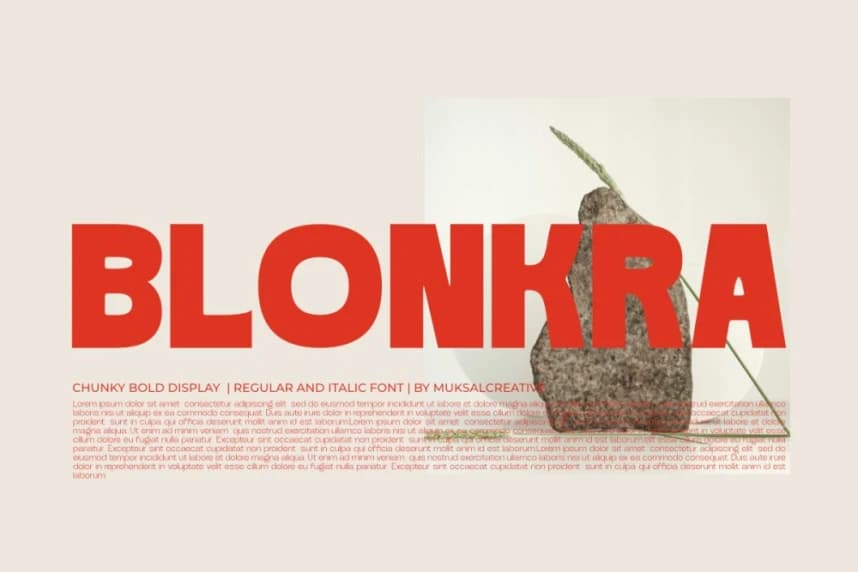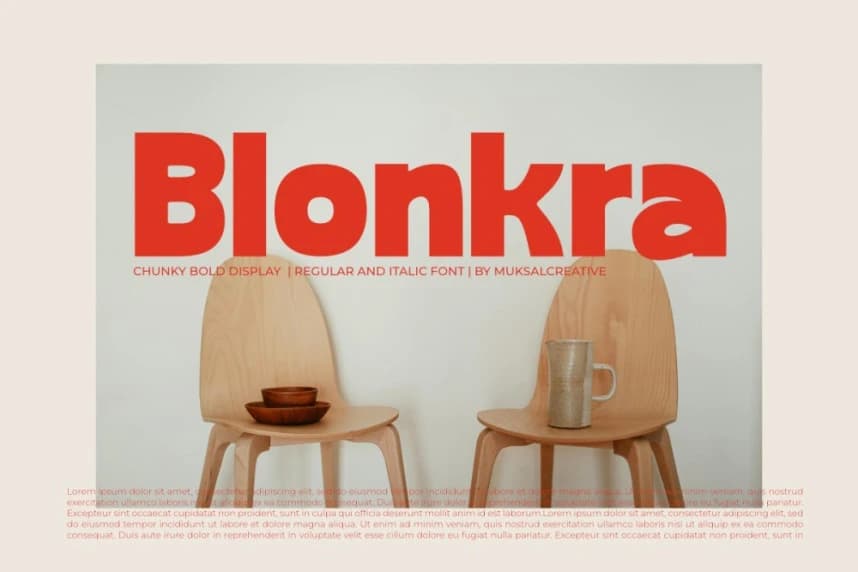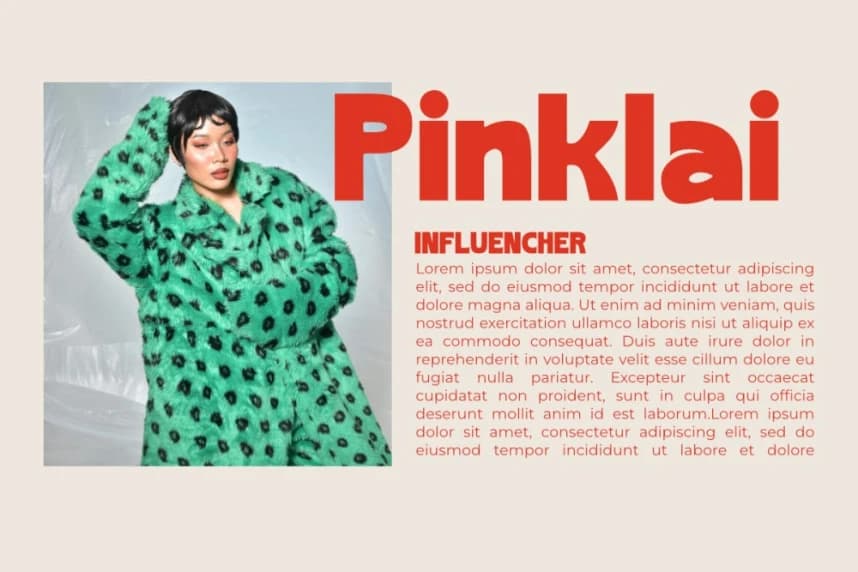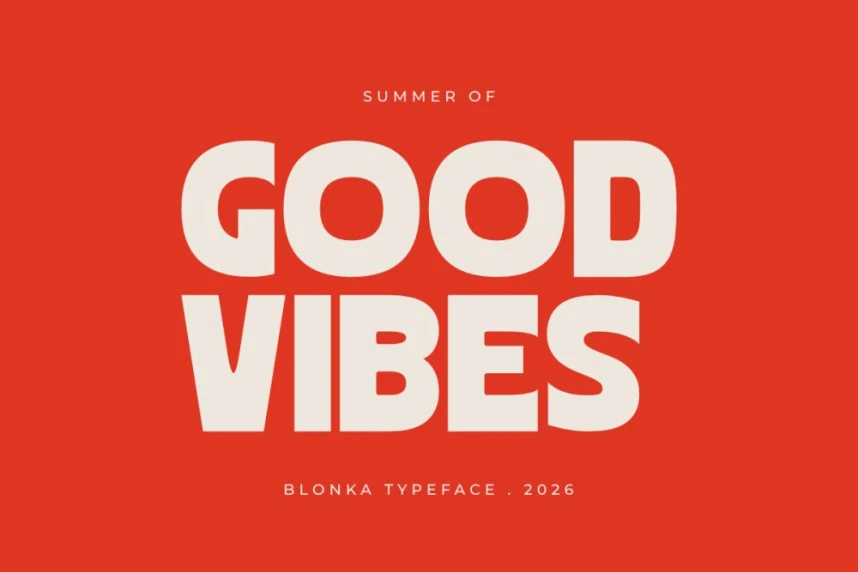
Blonkra Font
Blonkra Font is a chunky bold display sans-serif typeface designed with thick uniform strokes, rounded terminals, and bouncy organic curves. This typeface delivers a warm, energetic, and retro look, making it ideal for food branding, poster design, logo typography, and digital headlines.